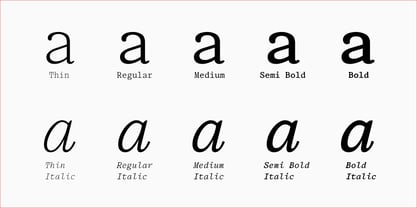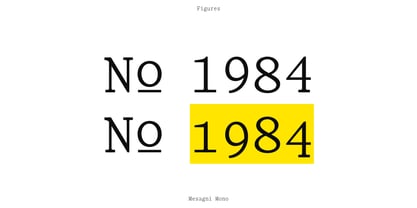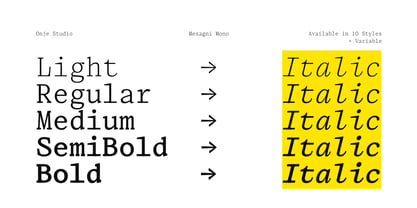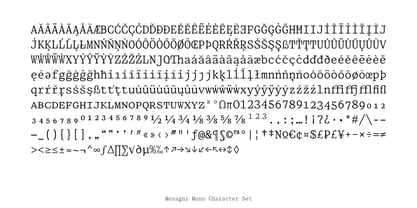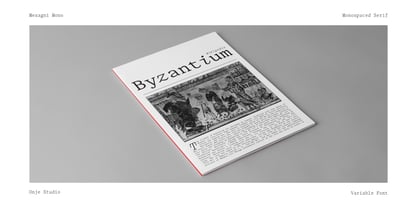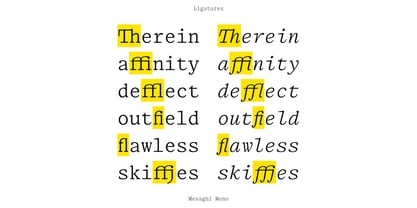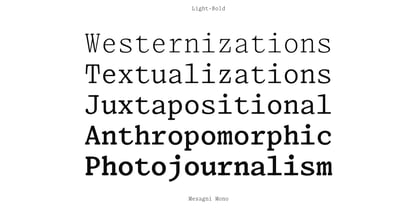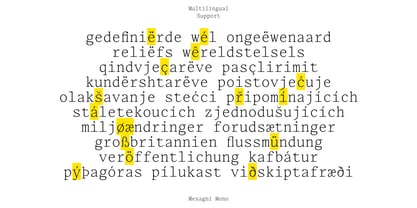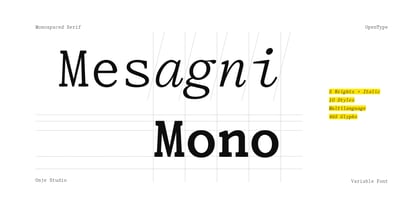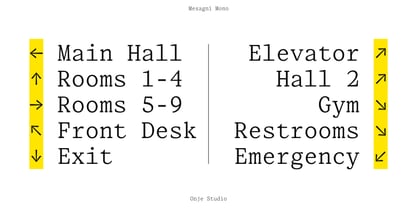
Mesagni Mono
by Onje Studio
Mesagni Mono is a monospaced version of Mesagni Text that preserves the humanist features while also bringing the print aesthetic to digital screens. The fixed width and its slightly adjusted optical stems make it more readable at smaller sizes. As it is still functional as an editorial typeface, the range of styles makes it more adaptable to broader contexts, such as web design projects, technical documentation, coding, or even a screenplay.
Designers: Intan Driyo
Foundry: Onje Studio